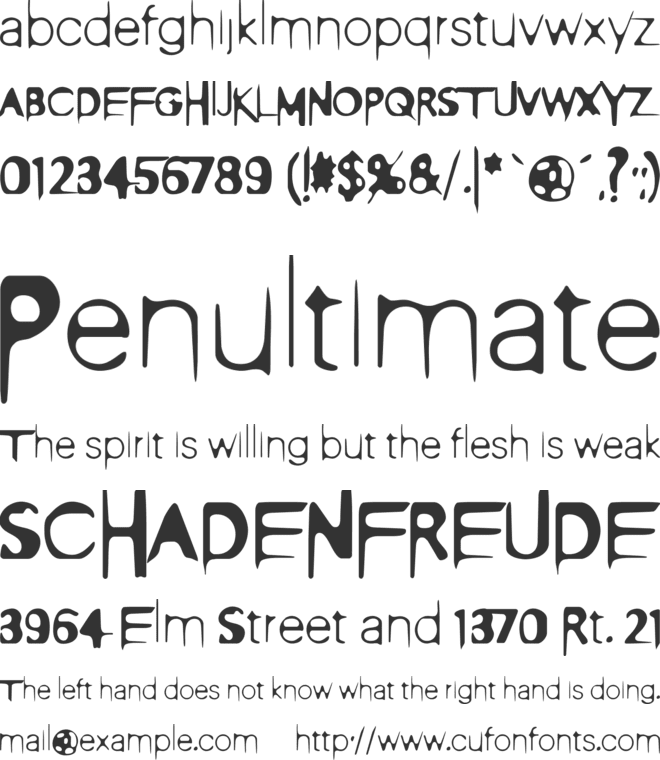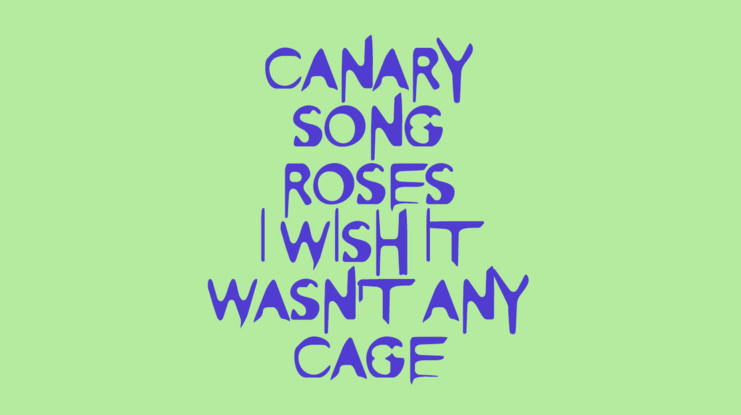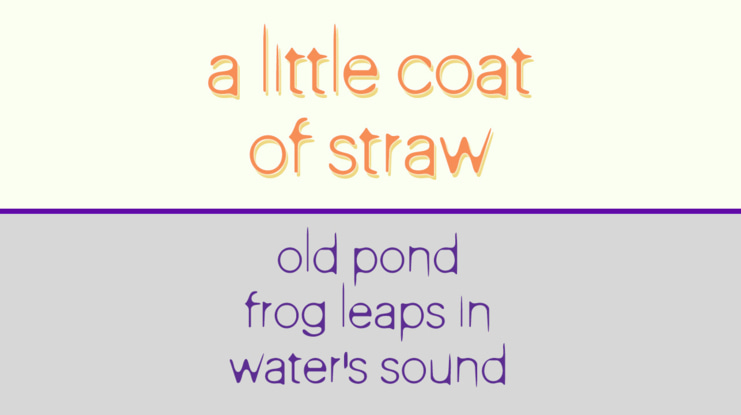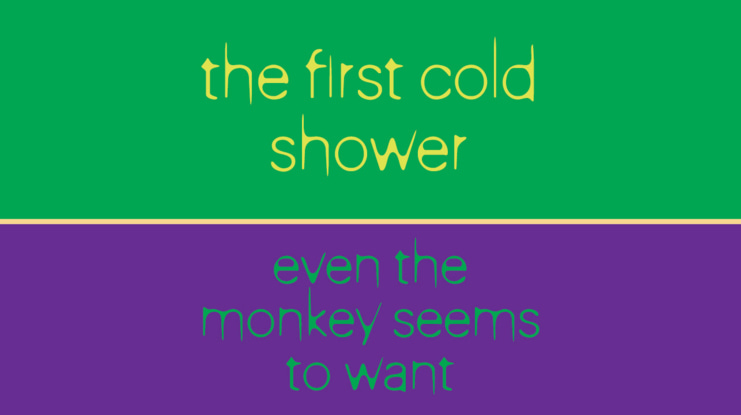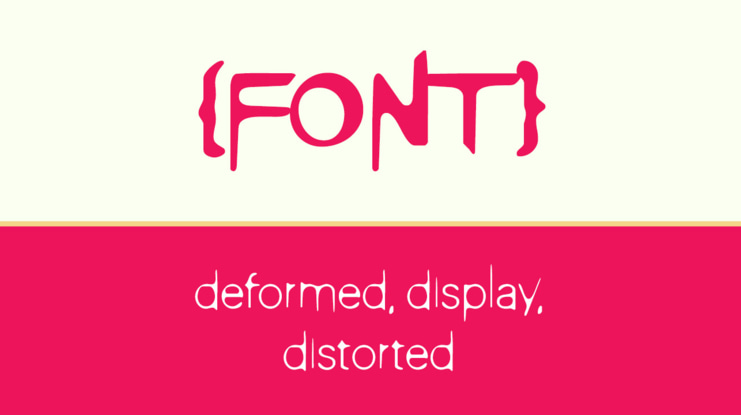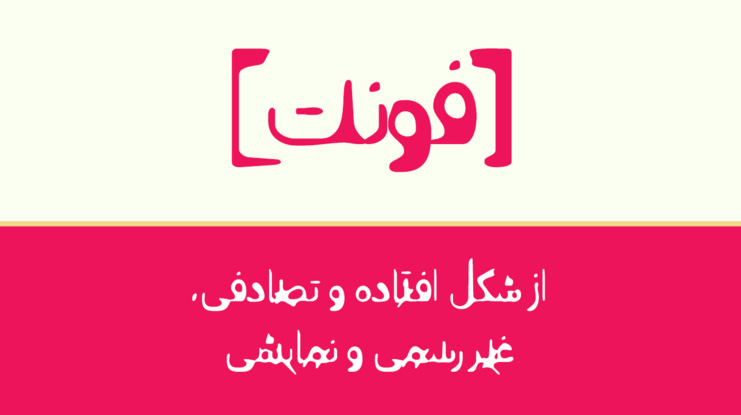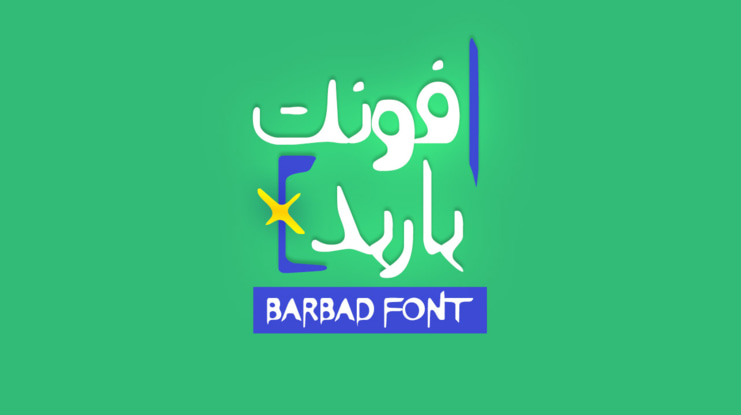
Barbad Arabic Font is a beautiful decorative font with a unique approach: heavy uppercase and thin lowercase characters comprise this font, making it suitable and unique for a wide range of friendly designs. Supports Persian, Arabic and Latin! Get a lot of high quality fonts on 47fonts.com!
Barbad by Shahab Siavash